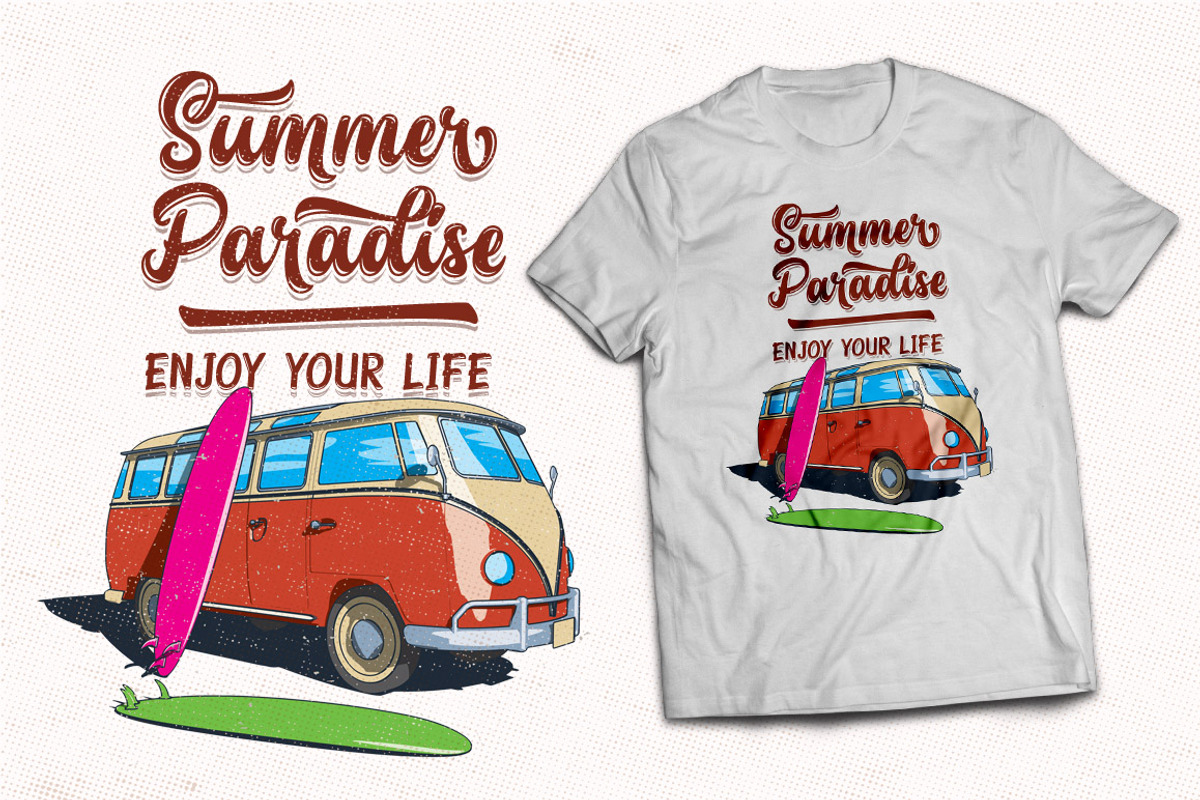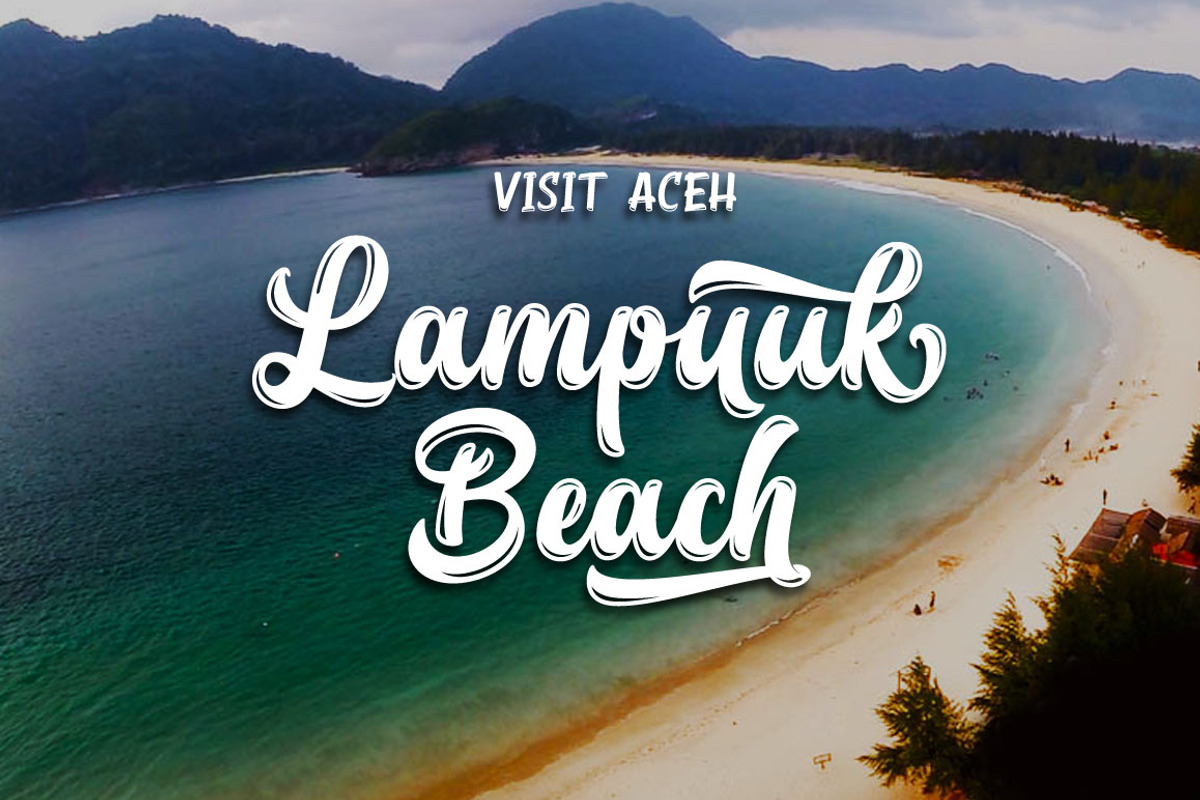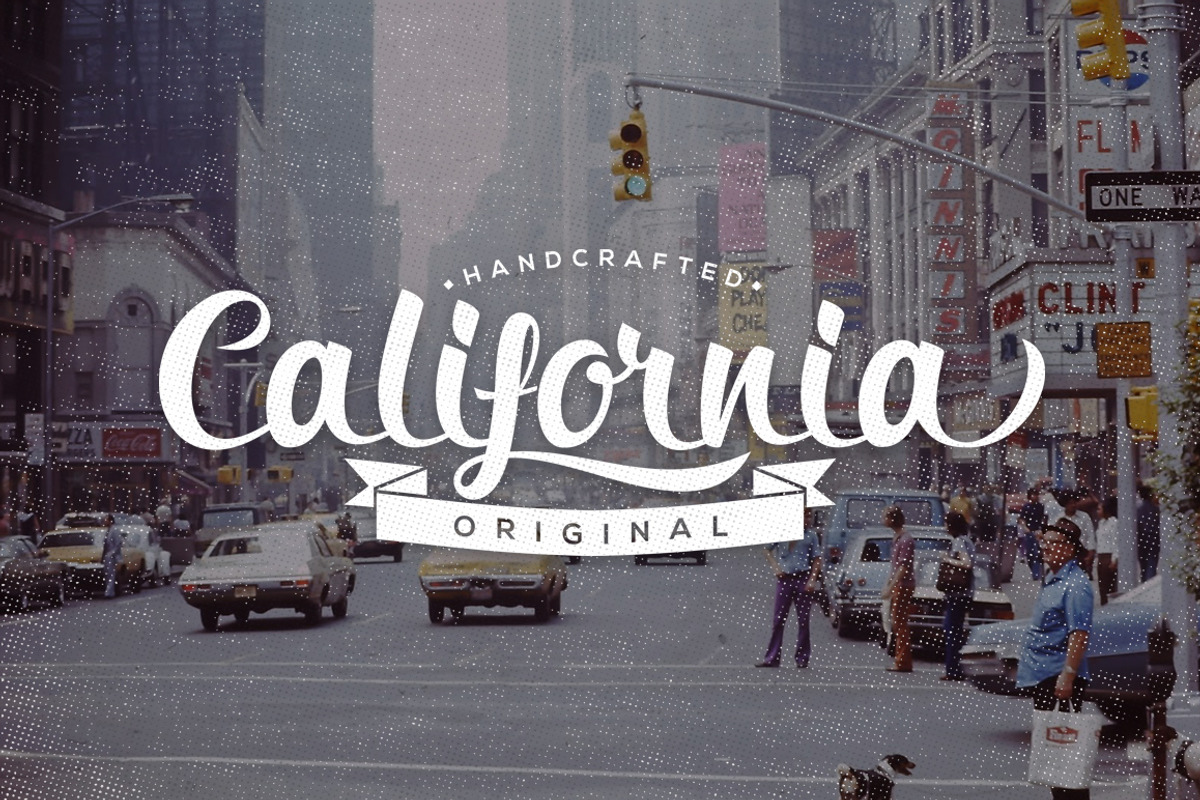
Young Coconut - fresh and solid for you to enjoy it all the time.
Young Coconut comes with uppercase, lowercase, numerals, punctuations and so many variations on each characters include opentype alternates, common ligatures and also additional swash to let you customise your designs.This script comes with two type, the regular and inline.This font is suitable to use as a logotype, apparel, wedding invitation, signboard, sport club, motor / car, etc.
OPENTYPE FEATURES
- Contextual Alternates
- All Alternates